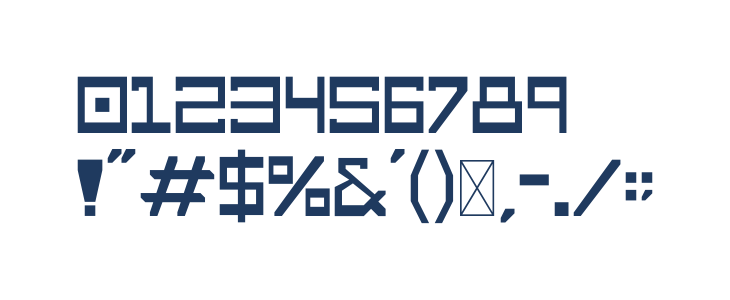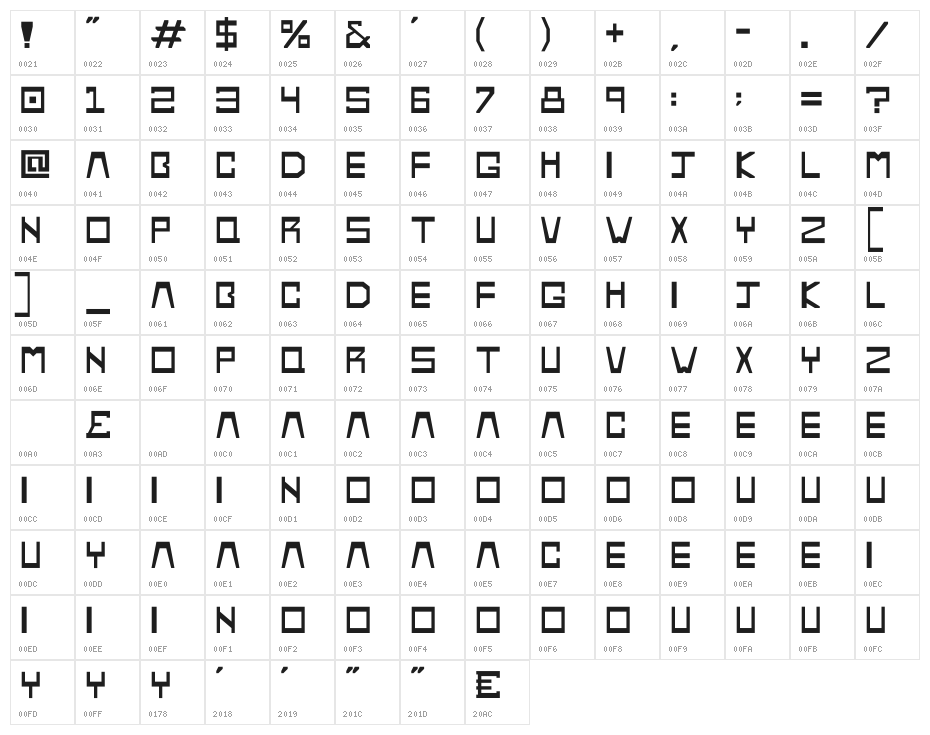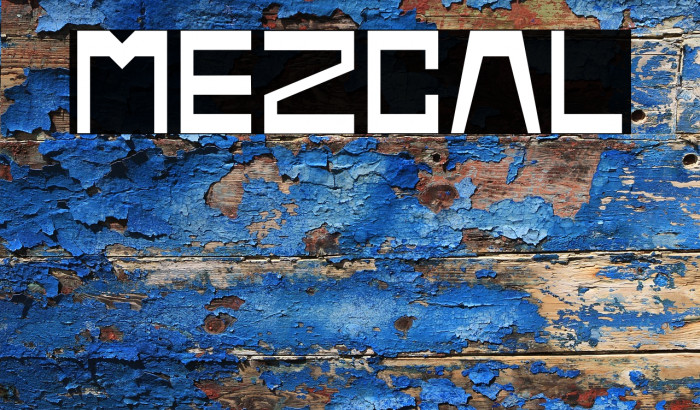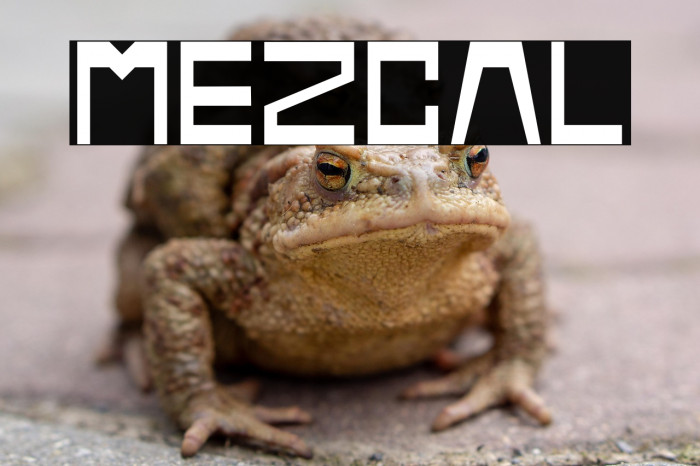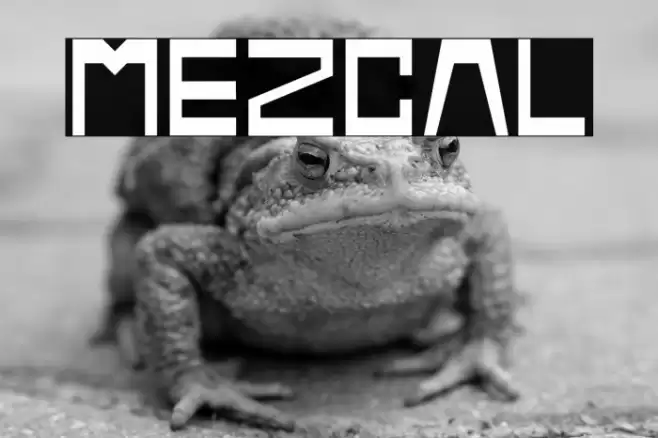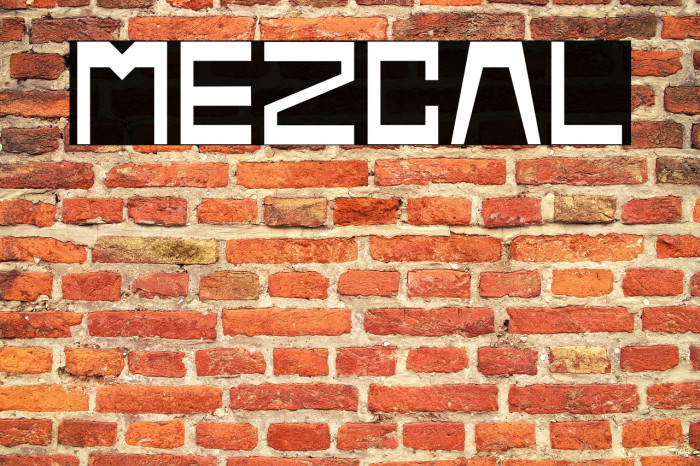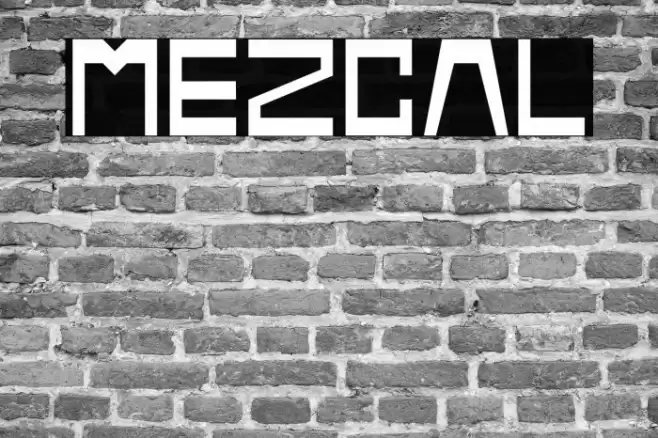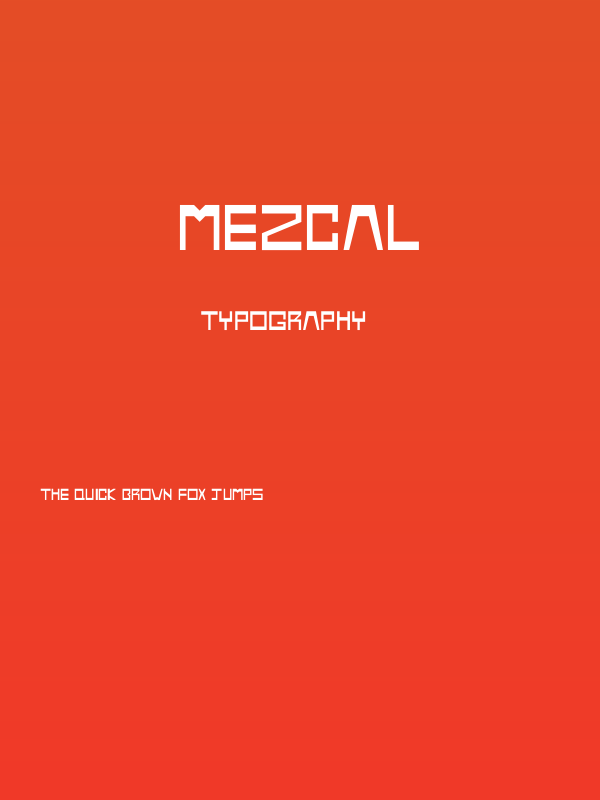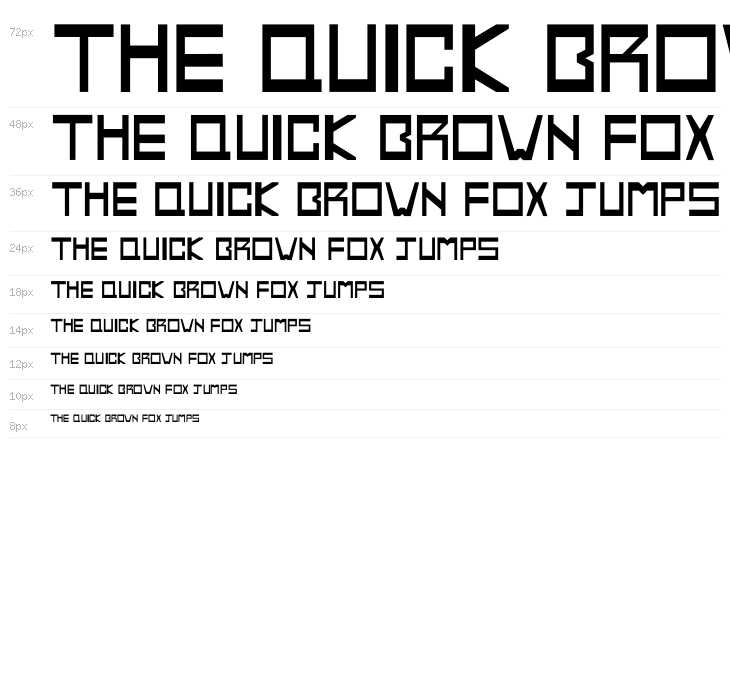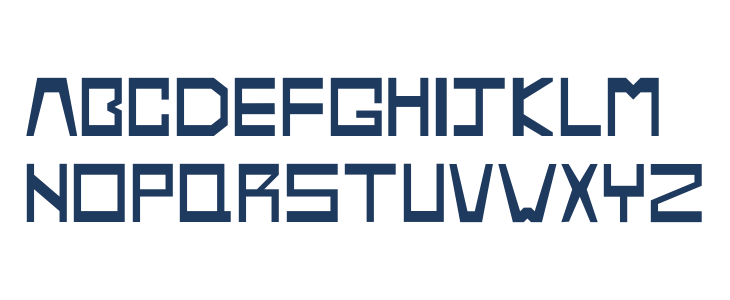
Mezcal Font
Mezcal Description
This font features a bold, geometric design with a modern and edgy aesthetic. The characters are constructed with sharp angles and straight lines, giving it a futuristic and industrial feel. The uppercase letters are particularly striking, with a uniform height and width that create a cohesive look. The numerals and special characters maintain this geometric style, ensuring consistency across all elements. The font's unique style makes it stand out, suitable for projects that require a strong visual impact.
| Proposed Projects | Ideal for branding, posters, and digital media that require a strong, modern look. |